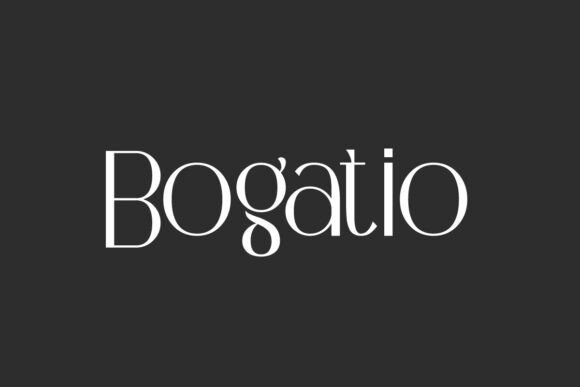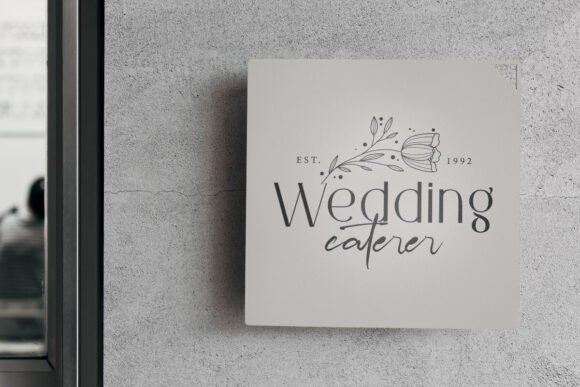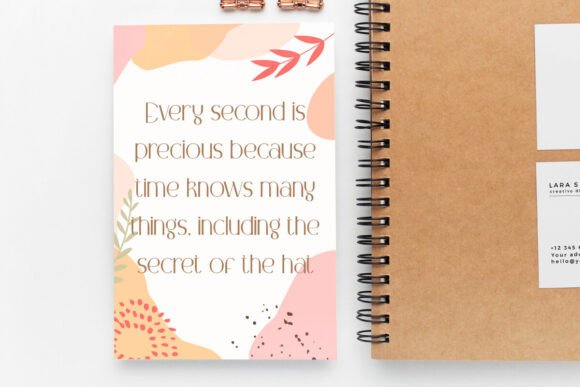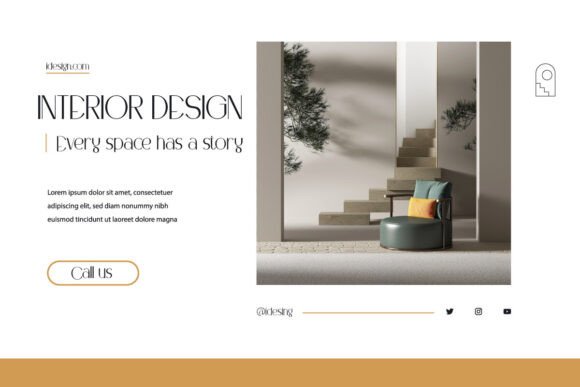
Bogatio Font: An Elegant Serif for Modern Logo Design & Wedding Branding
About the Bogatio Font
Explore the possibilities with Bogatio Font, a font that offers both beauty and functionality. Bogatio Font is a fancy, sleek and elegant display font. This font has lines that are not too thin with a unique combination of shapes that make it look charming. It will suits many designs, such as brochure, business card, custom design, gift box, invitation, label, product packaging, quote, screen printing, signage, stationery, website, and more!
Bogatio’s elegant, yet slightly bold character makes it ideal for headlines, logos, and short impactful text on packaging or signage. Its refined curves work well in high-end branding projects or invitations, adding a touch of sophistication. However, its decorative nature makes it less suitable for body text or UI elements where readability is paramount.
Pairing Bogatio effectively requires considering its inherent elegance. A clean sans-serif like Montserrat or a geometric sans-serif like Futura would provide a strong contrast and enhance readability in supporting text. For a more luxurious feel, a delicate serif such as Playfair Display could be used.
Its overall personality is best described as sophisticated and confident, lending itself to brands aiming for a premium or upscale image. Avoid pairing it with overly playful or informal fonts to maintain its refined aesthetic.
Bogatio Font Usage Examples
Bogatio Font Example